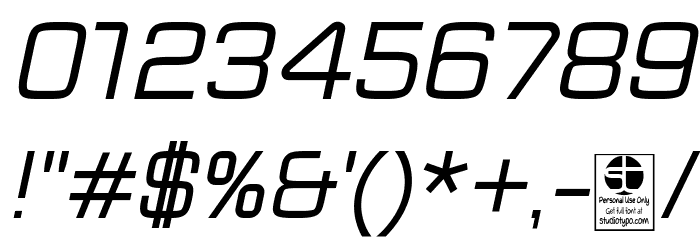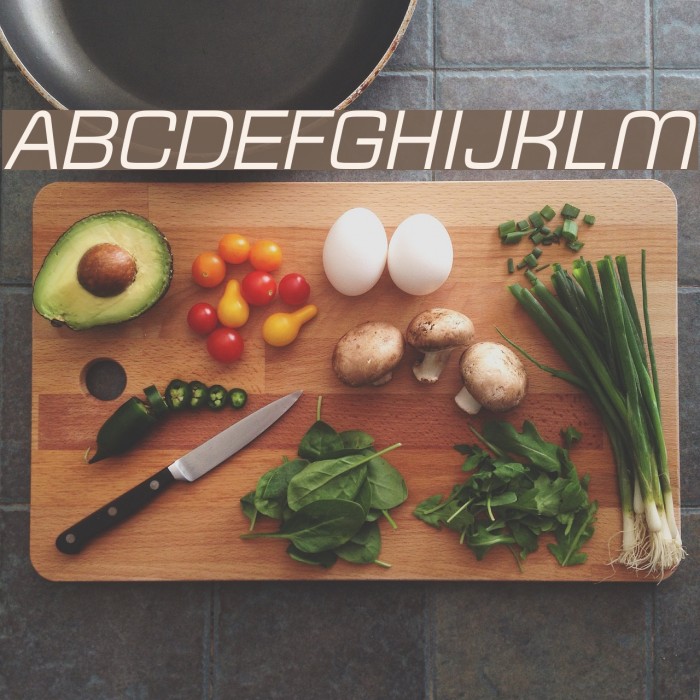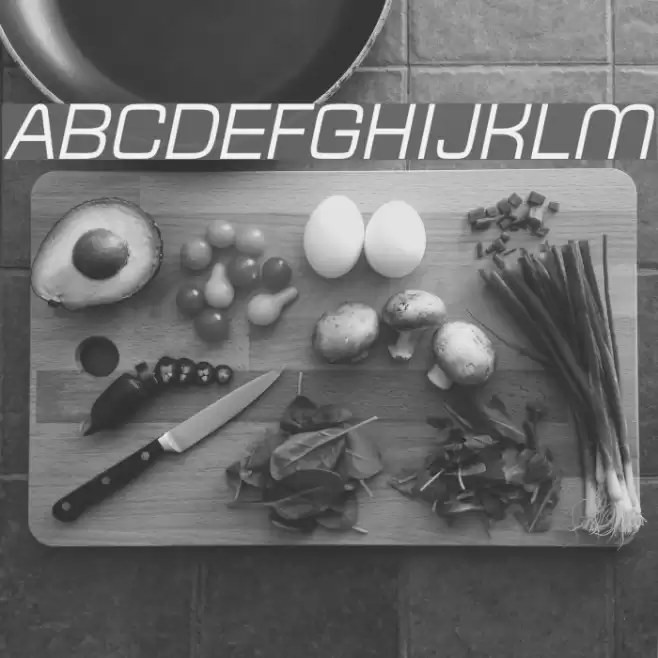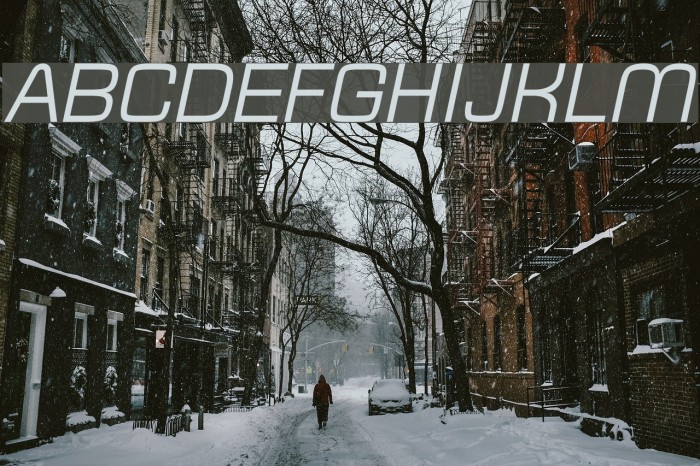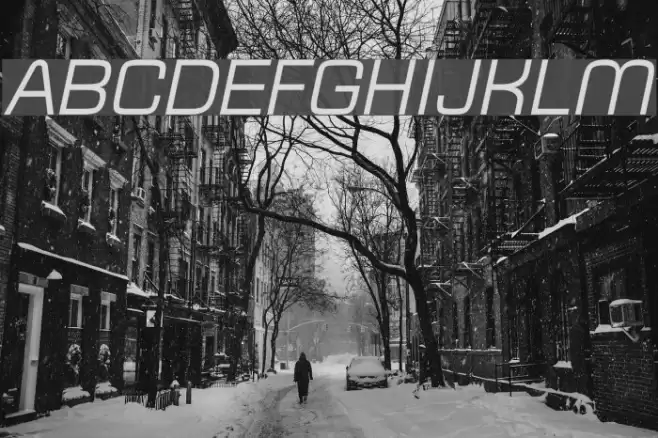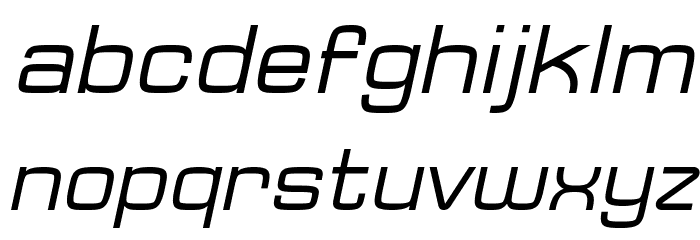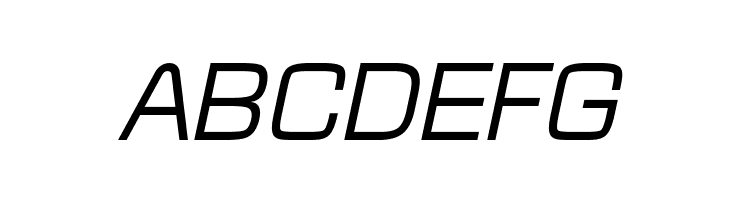
Typo Square Italic Demo Font
Typo Square Italic Demo Description
This font features a sleek, modern design with a distinctly italicized style. The characters are slightly elongated with a forward slant, giving a sense of motion and dynamism. The strokes are consistent in weight, providing a uniform appearance across all characters. The uppercase letters are bold and commanding, while the lowercase letters maintain a smooth and flowing aesthetic. The numerals are clear and easily distinguishable, making them suitable for various applications. Special characters are well-defined, ensuring versatility in usage. Overall, the font exudes a contemporary and professional feel, ideal for projects that require a touch of elegance and modernity.
Character SpacingMonospaced
ContrastLow
Overall StyleModern
Use CaseHeadlines, Logos, Digital Media
Proposed ProjectsIdeal for branding, advertising, digital media, and editorial design projects.